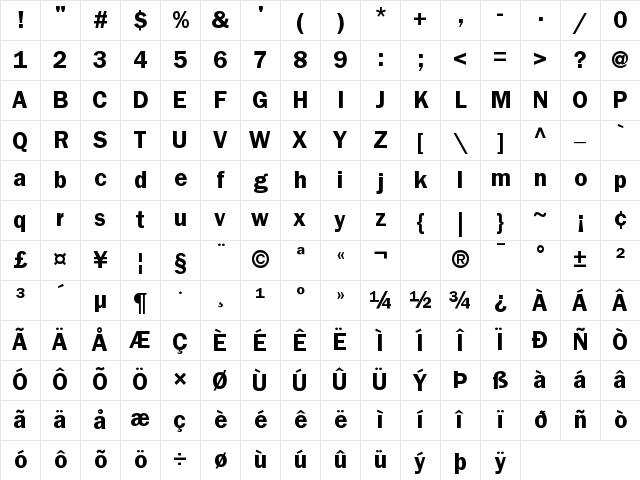
Complete UnGraphic Bold glyph index. Displaying only characters natively supported by UnGraphic Bold font.
UnGraphic is a composed and adaptable typeface that performs quietly and consistently across a wide range of design contexts. Its bold stroke weight gives it real presence on the page.
Who designed the UnGraphic Bold font?